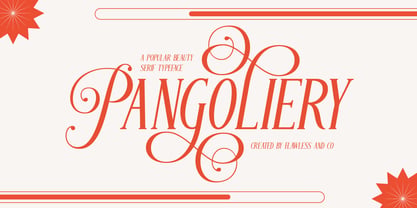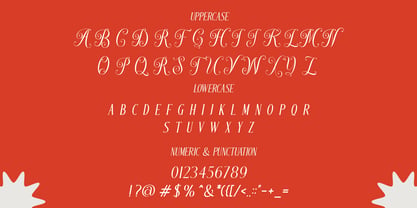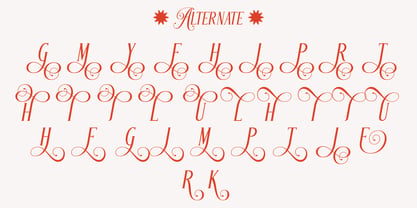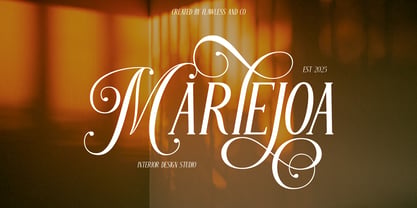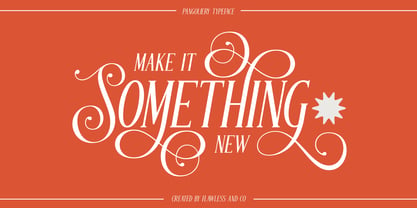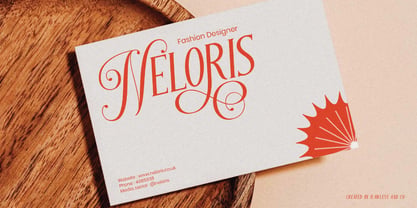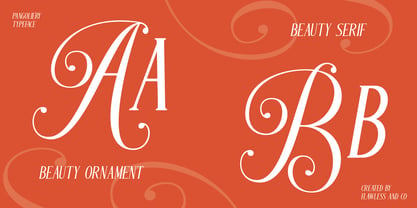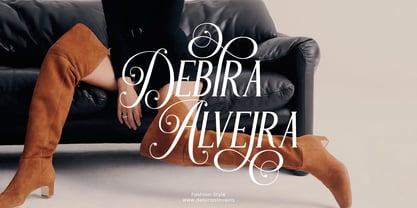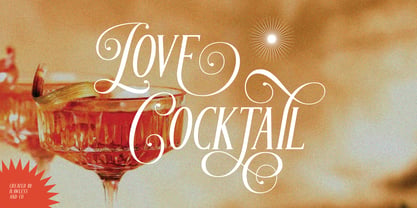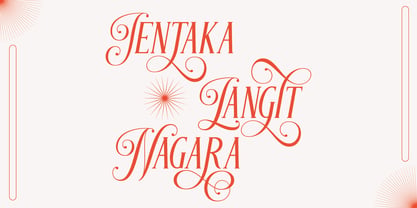
Pangoliery
by Flawlessandco
The Pangoliery Font Family was designed by Achmad Yani and published by Flawlessandco. Pangoliery contains 1 styles. More about this family
Pangoliery is stylish serif typeface that radiates elegance and charm. Designed with delicate curves and a contemporary serif structure, Pangoliery brings a sense of luxury and sophistication to every design it touches. This typeface blends modern aesthetics with timeless beauty, making it an excellent choice for high-end branding, fashion editorials, beauty products, and creative projects that demand a touch of class. With its graceful serifs and soft contrast, Pangoliery is both readable and visually captivating in print and digital formats.
Features :
Multilingual, Uppercase alphabet A-Z, Lowercase alphabet a-z, Numbers 0-9, Some punctuation, Alternates & Ligatures
Designers: Achmad Yani
Foundry: Flawlessandco